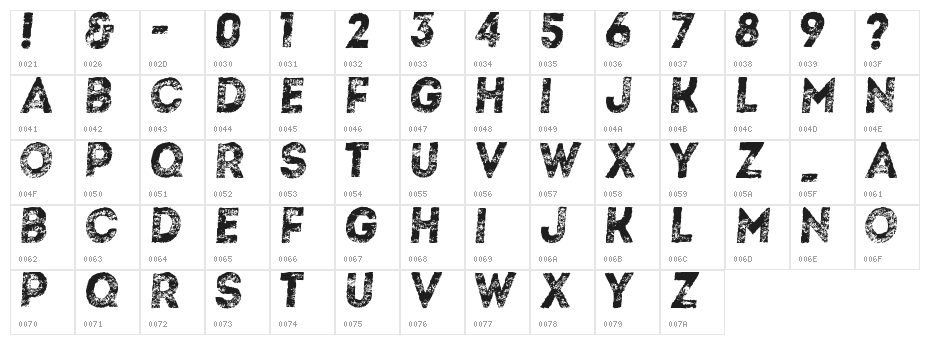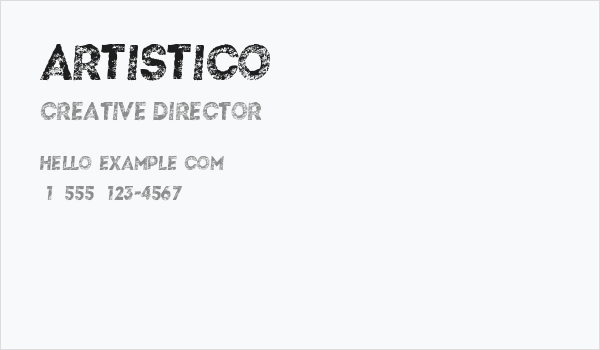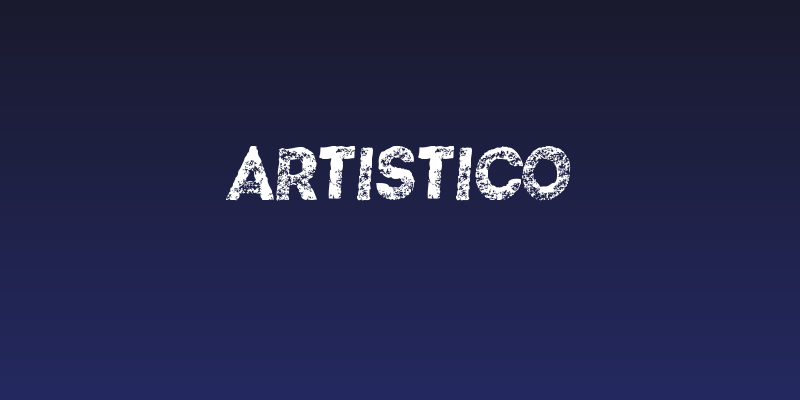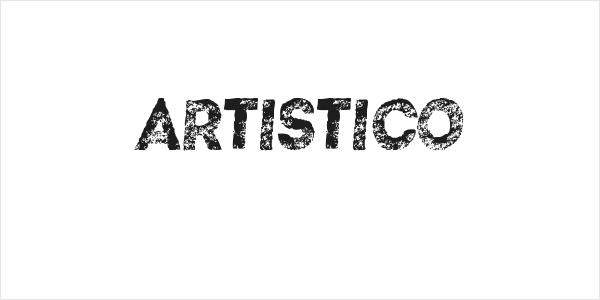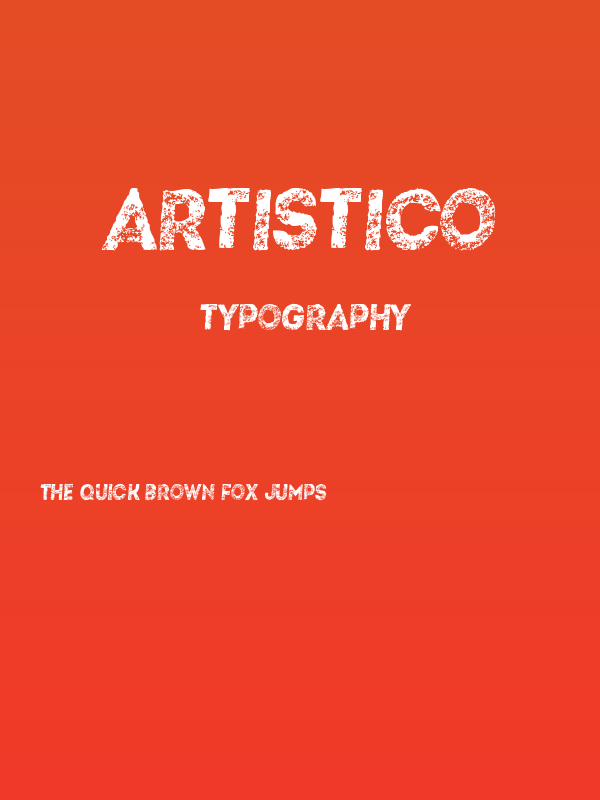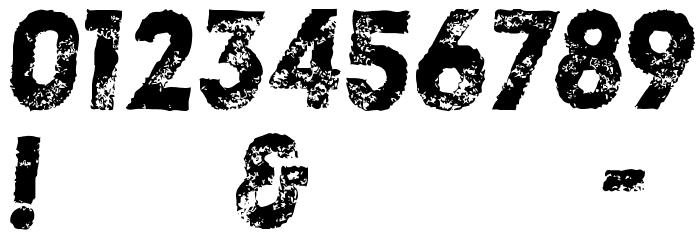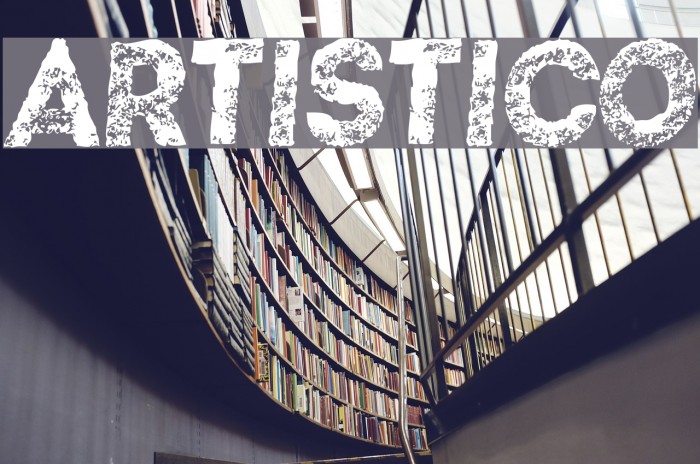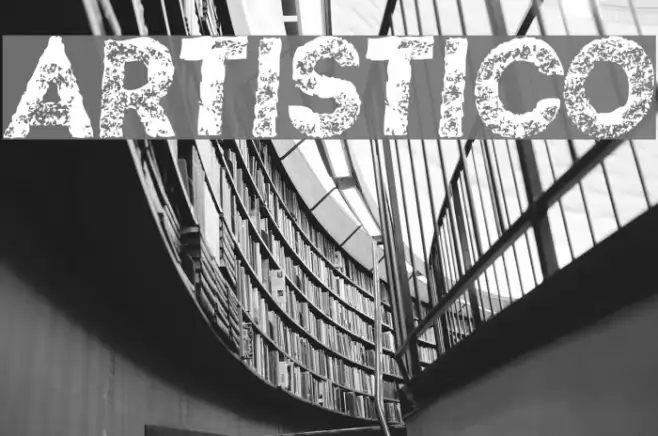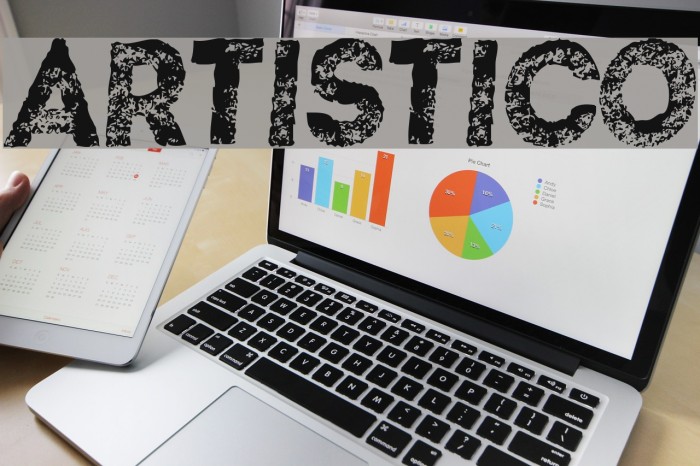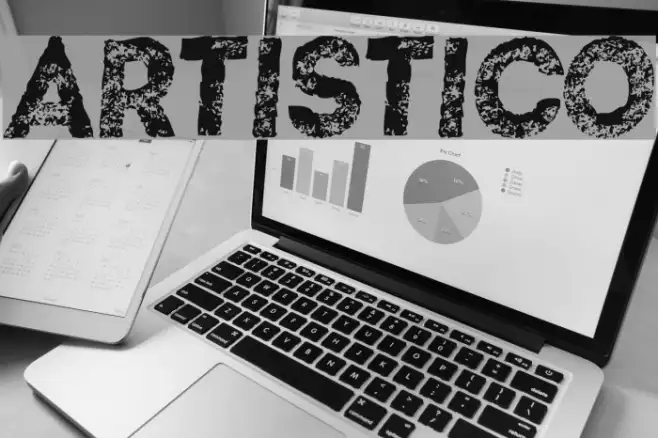
Artistico Font
Artistico Description
This font features a bold, distressed style with a textured, grunge appearance. The characters are uppercase and have a rough, uneven surface that gives them a worn, vintage look. The font is highly decorative, making it ideal for projects that require a strong visual impact. The letters are wide and have a substantial presence, with a consistent weight throughout. The texture adds a unique character to each letter, creating a dynamic and eye-catching effect. This font is perfect for designs that aim to convey a sense of ruggedness or authenticity.
| Proposed Projects | Ideal for posters, album covers, branding, and any design needing a strong, vintage aesthetic. |